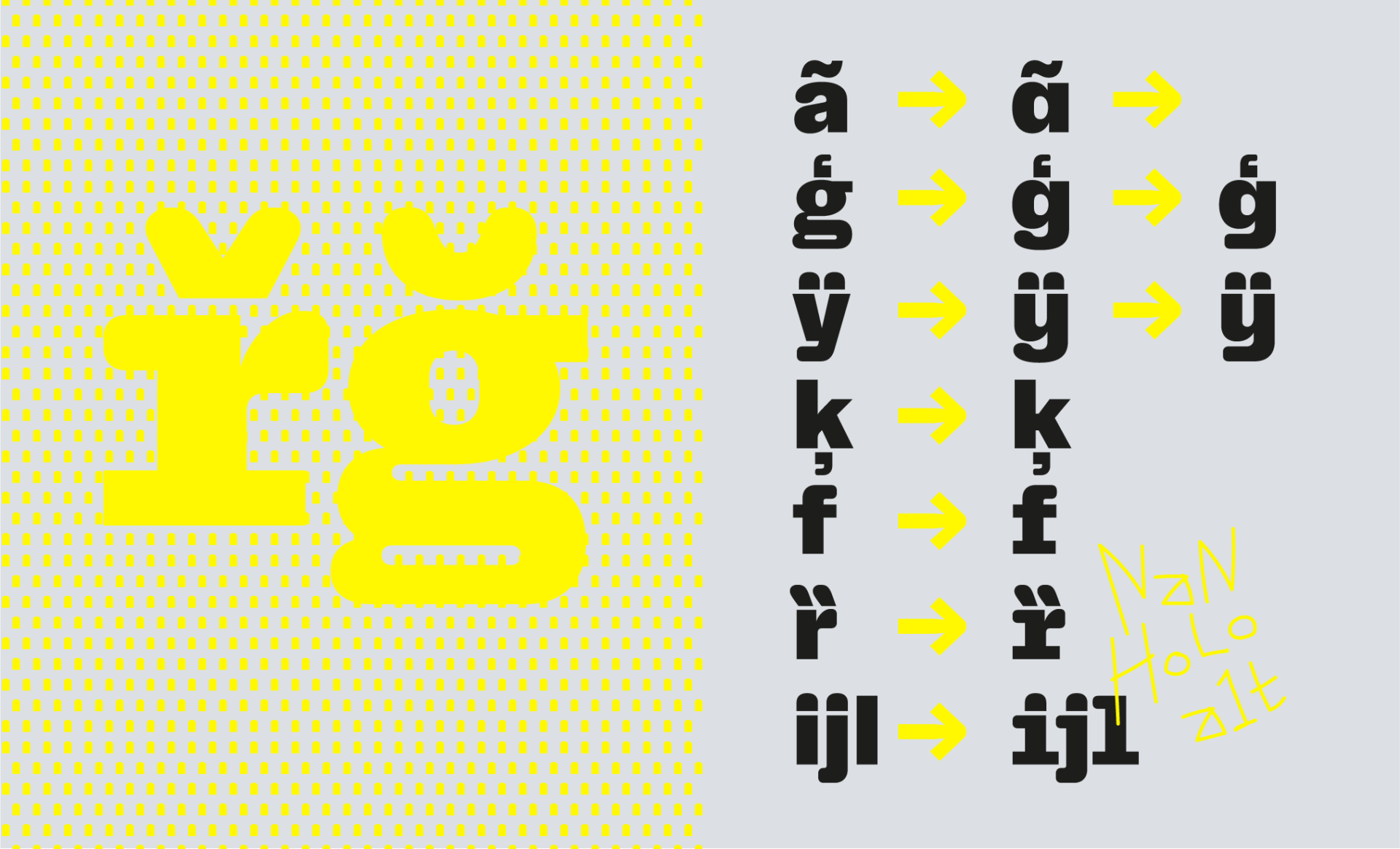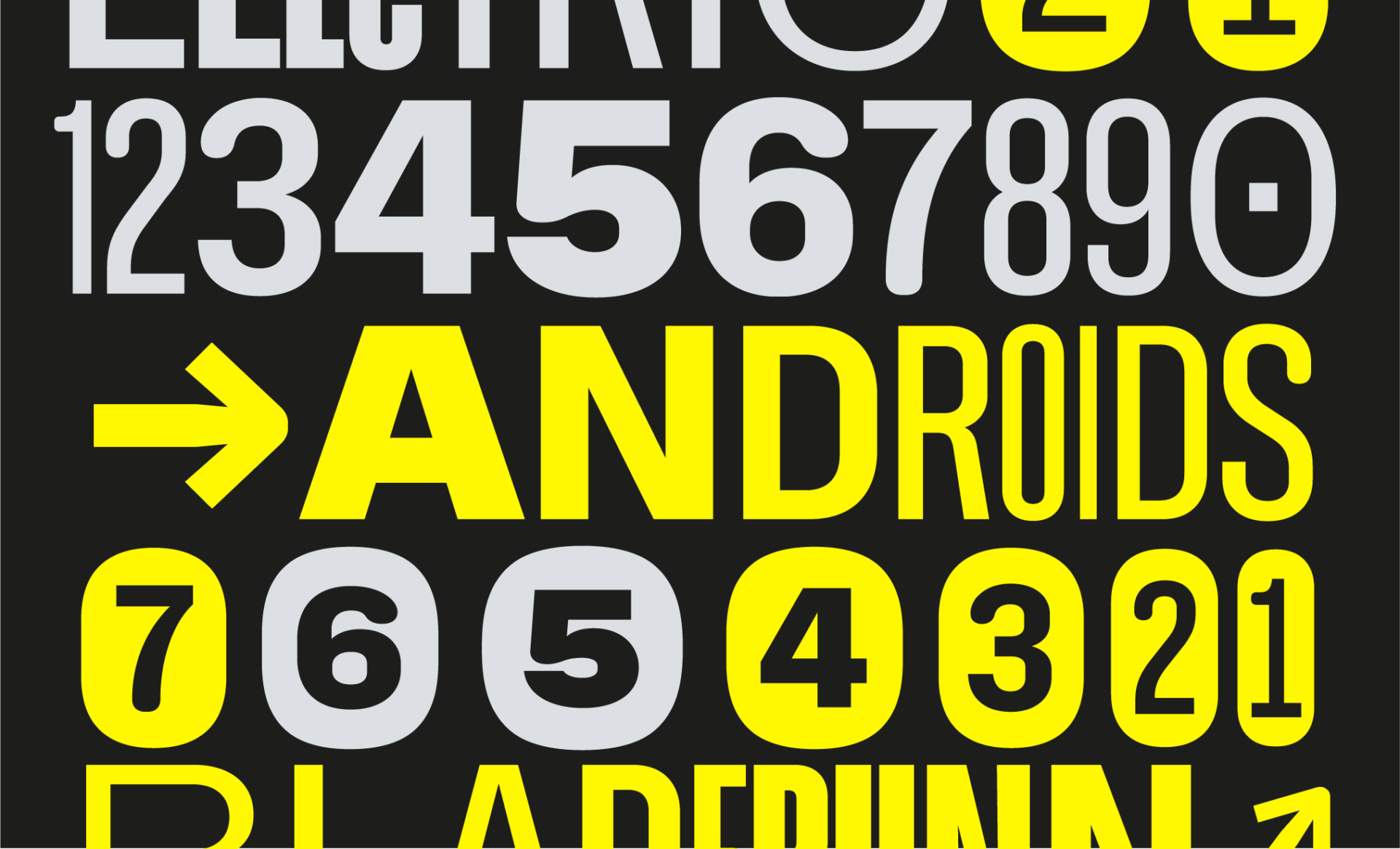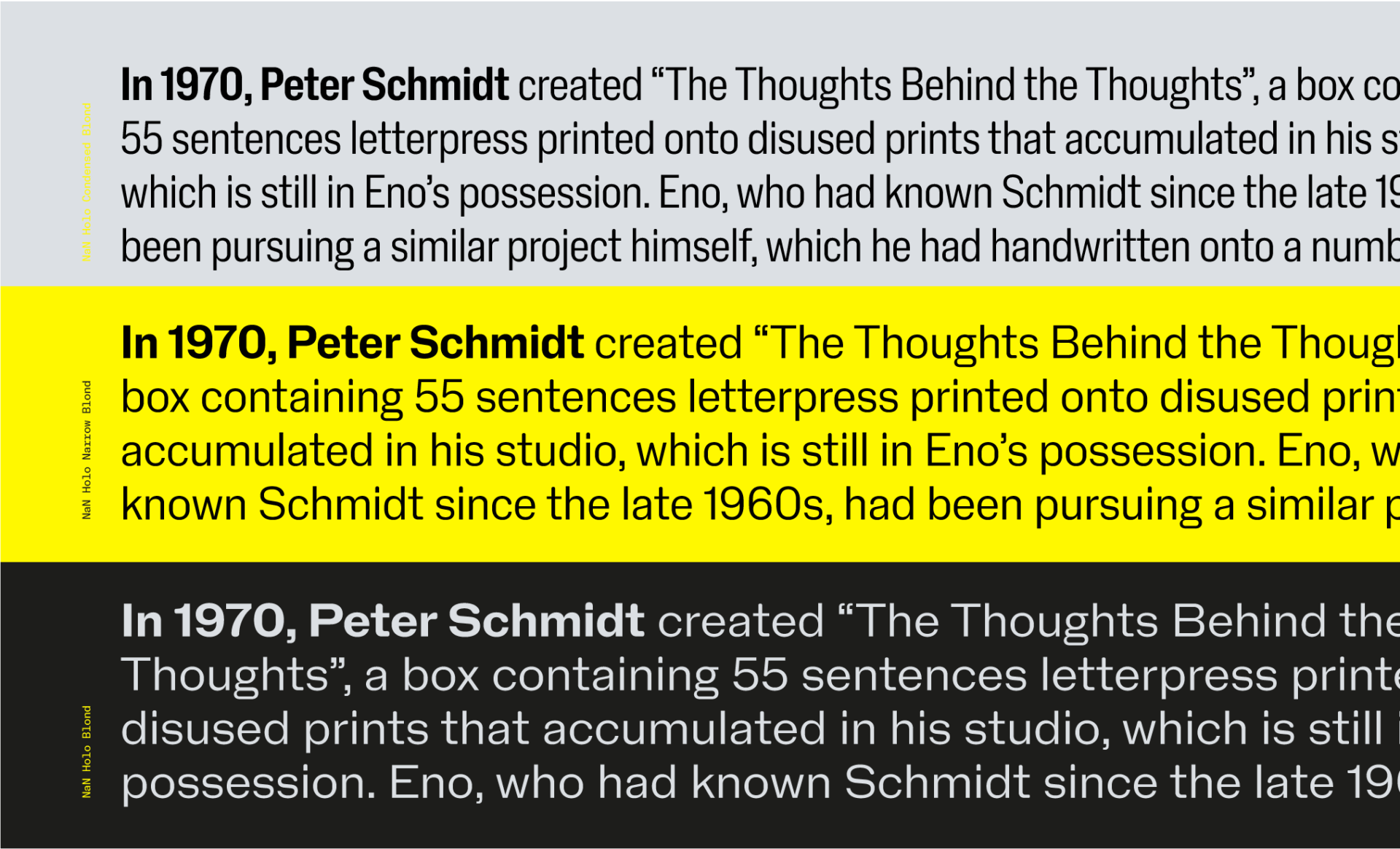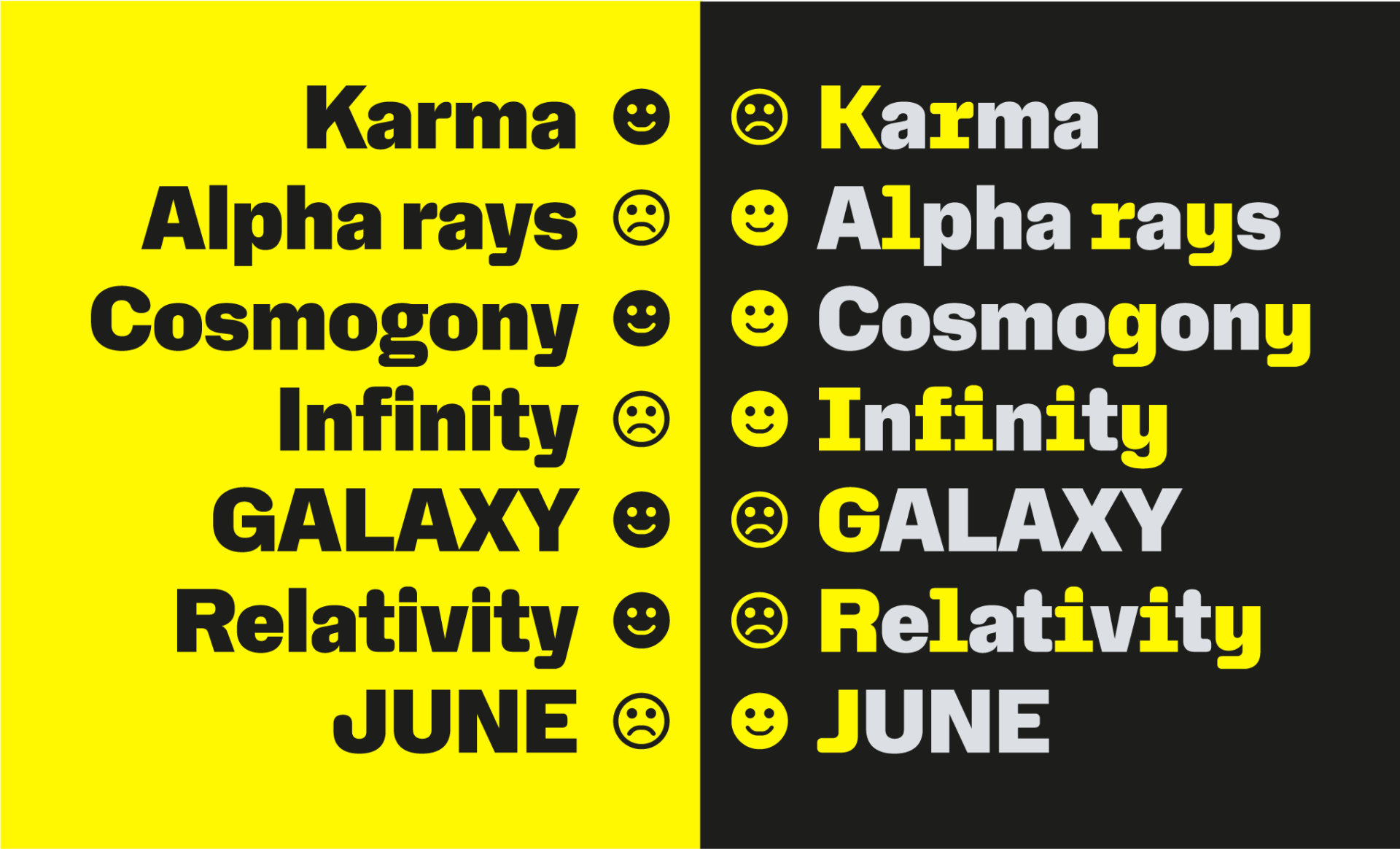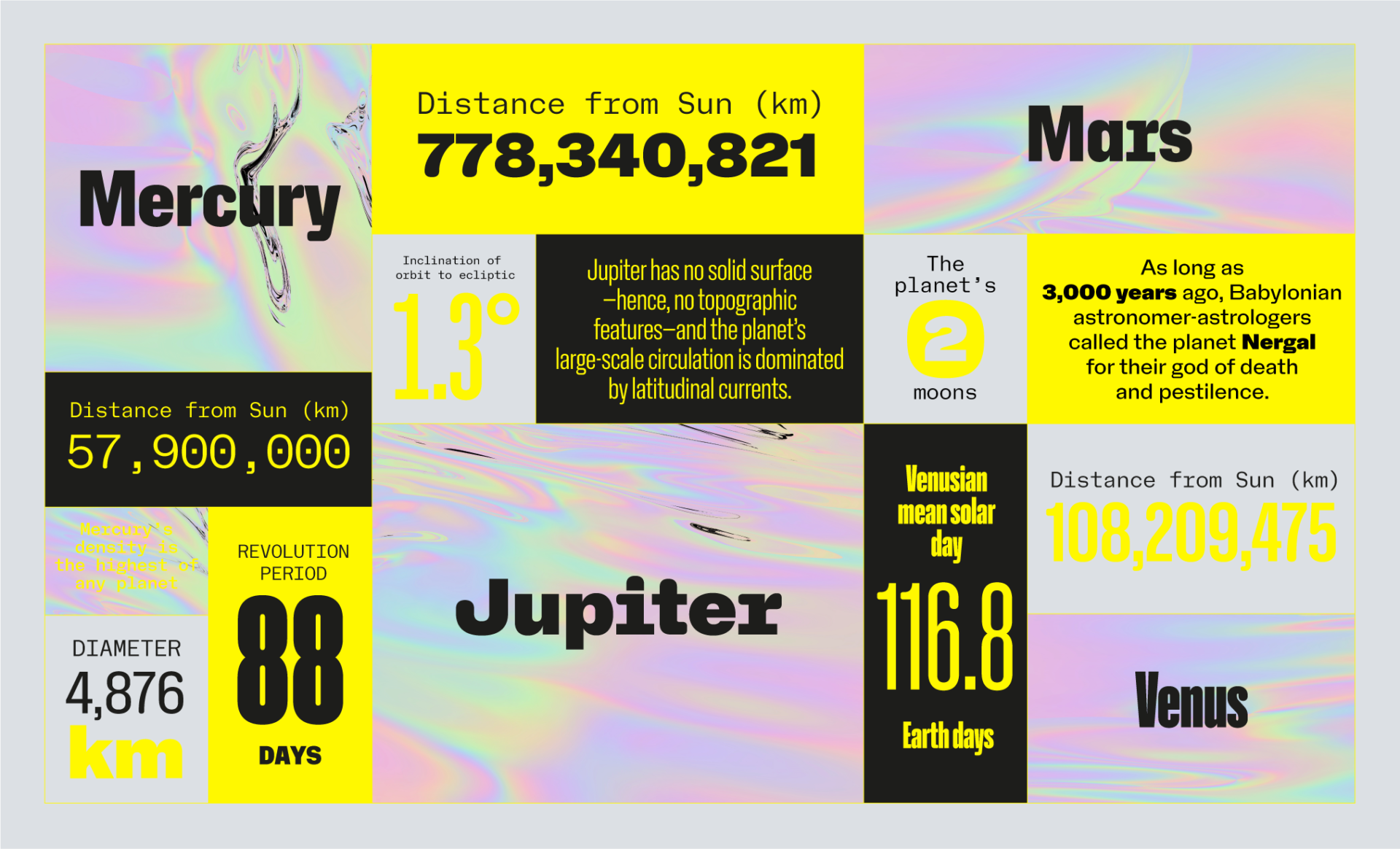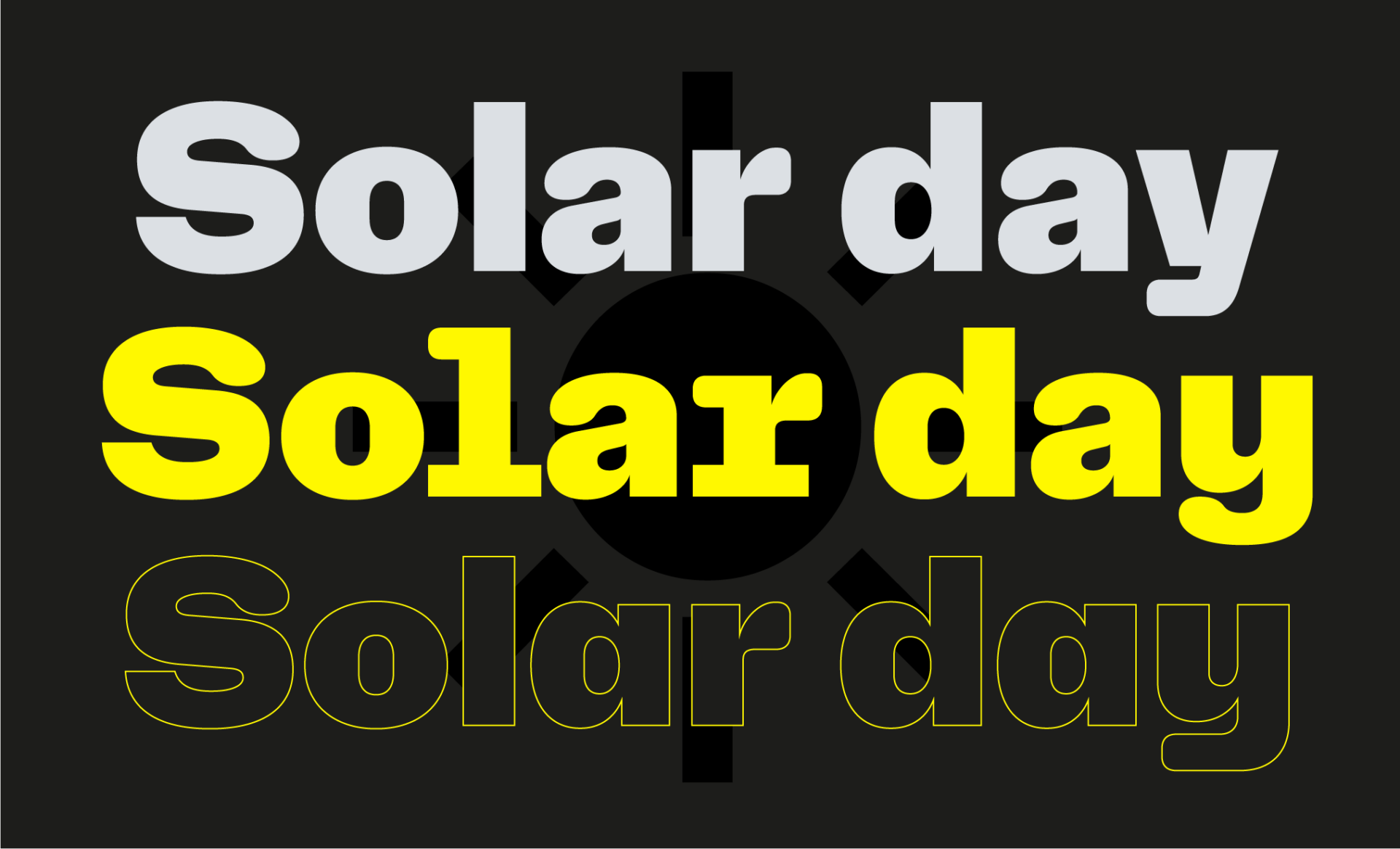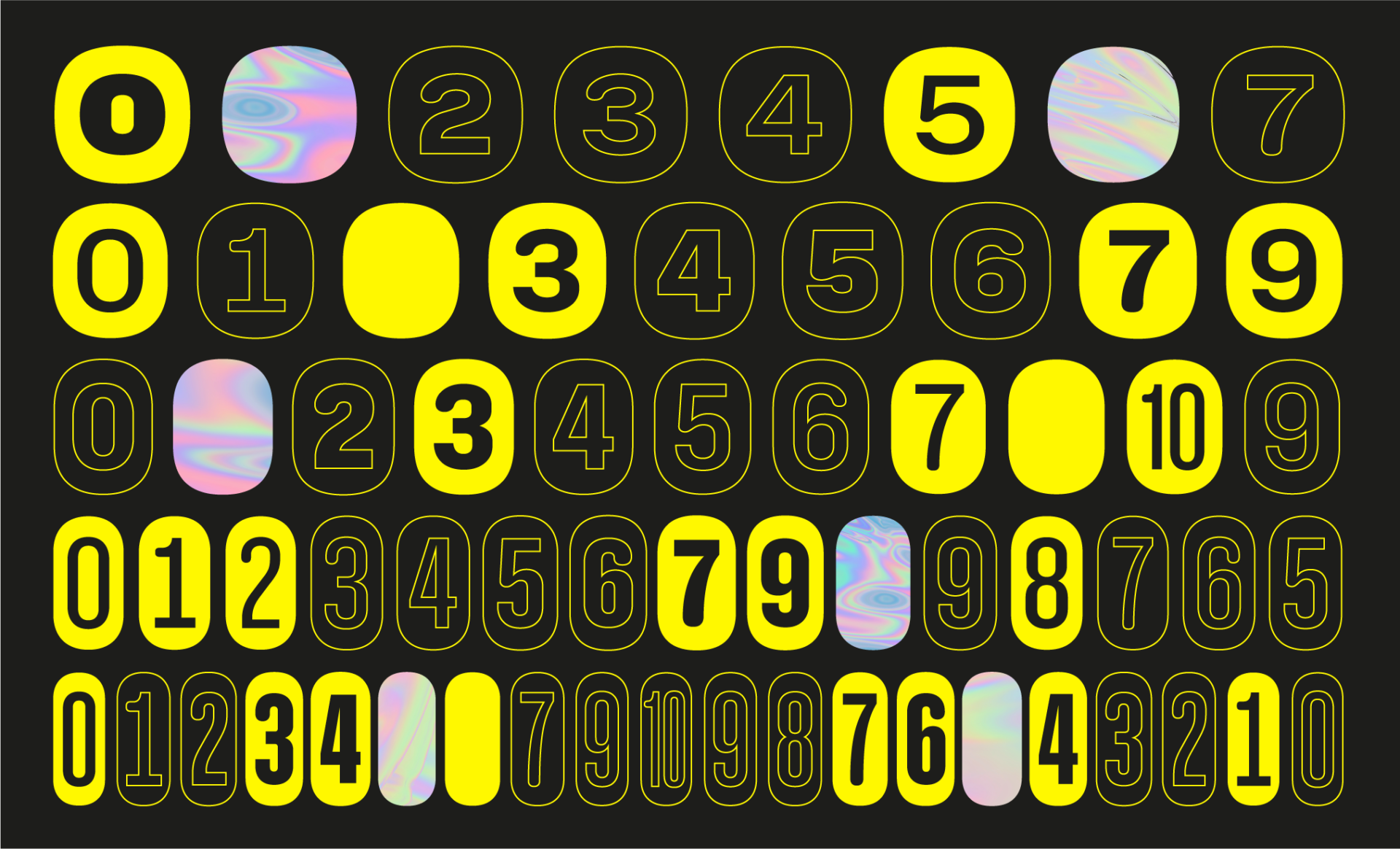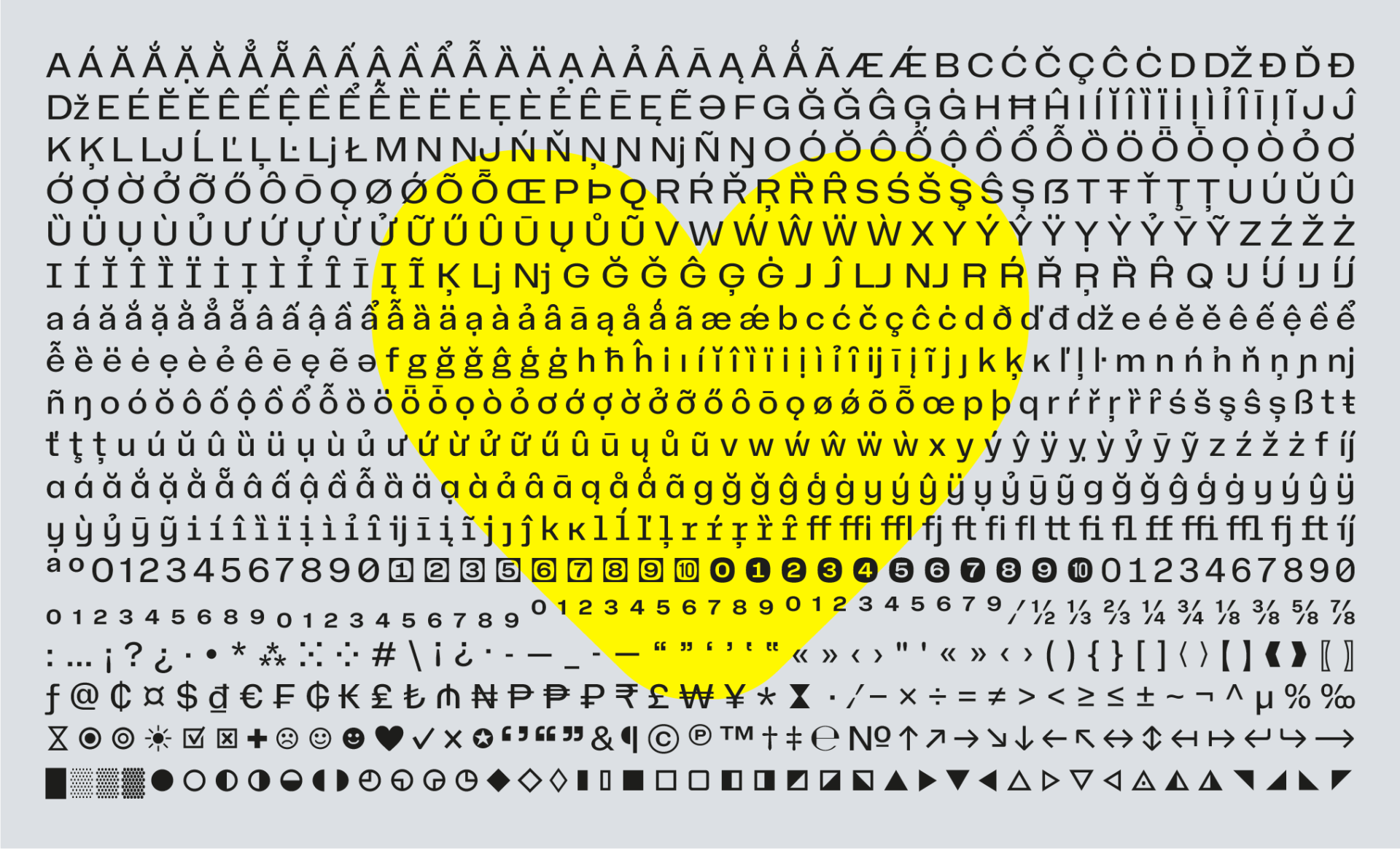
About NaN Holo
NaN Holo is a replicant-inspired, fleshy neo-Grotesk font in proportional and monospaced styles, built on an industrial frame with biological forms disrupting an otherwise tensely machined flow. It is designed with one big, big question in mind: does it pass your Voight-Kampff test?
Crafted within tension and contrast, Holo’s rectangular counters and round curves form a construction rarely seen in the neo-Grotesk genre. This novelty offers an atemporal spirit that makes you wonder if you’re peering at something either very new or that you have known for ages. Something nostalgic and welcoming but also unfamiliar. Something transient.
The strength of Holo lies in its dramatic versatility. When used on a large scale, the tension between its voluntarily inconsistent rounded and squared details brings surprise, character and warmth, whilst in smaller applications, all those details blend together – becoming a quieter, sturdy work-horse, allowing a fluid reading experience while keeping a healthy amount of personality. But Holo’s personality doesn’t only rely on details. A vital element of this family is its proportions; with wider-than-usual capitals, Holo delivers a subtle and confident breath to the text rhythm, showing its comfortable yet lively regularity.
If Holo does one thing, it’s deliver. It’s reliable, human, and original (and never too loud). Think of your favourite hairdresser, who you’ve known for years. Holo is the AI-recommended automaton that replaced your hairdresser without you even noticing.
Doubling down on the machine side of the family, Holo Mono is the code at the typeface’s foundation. The ghost in the machine. Humanity at the centre of circuitry. After all, what are machines if not images of ourselves, and what are we if not images of God?
Typeface: NaN Holo
Lead designer: Luke Prowse
Additional design: Hugues Gentile, Fanny Hamelin, Fadhl Haqq, Léon Hugues, Fátima Lázaro, Jean-Baptiste Morizot, Florian Runge